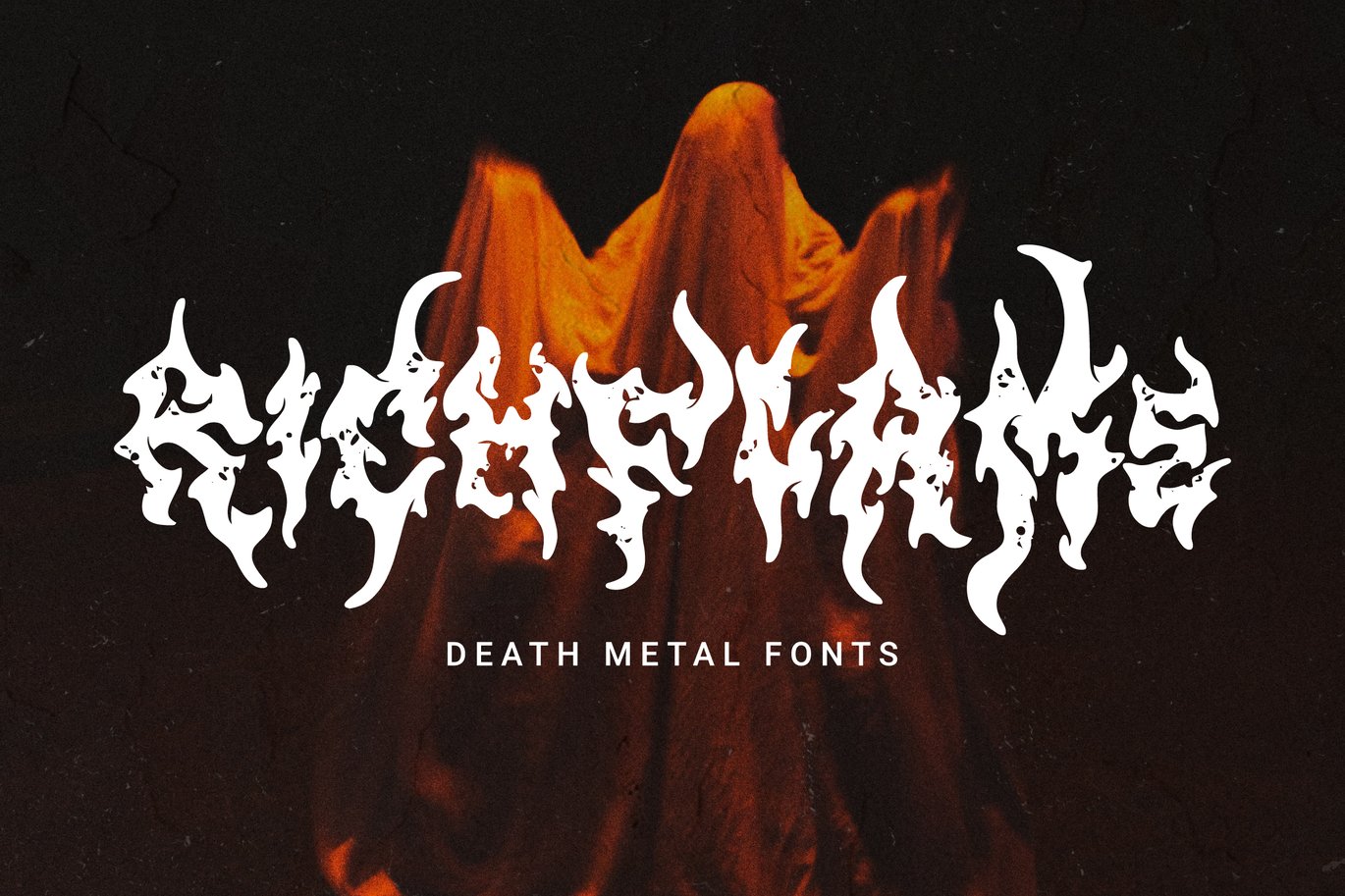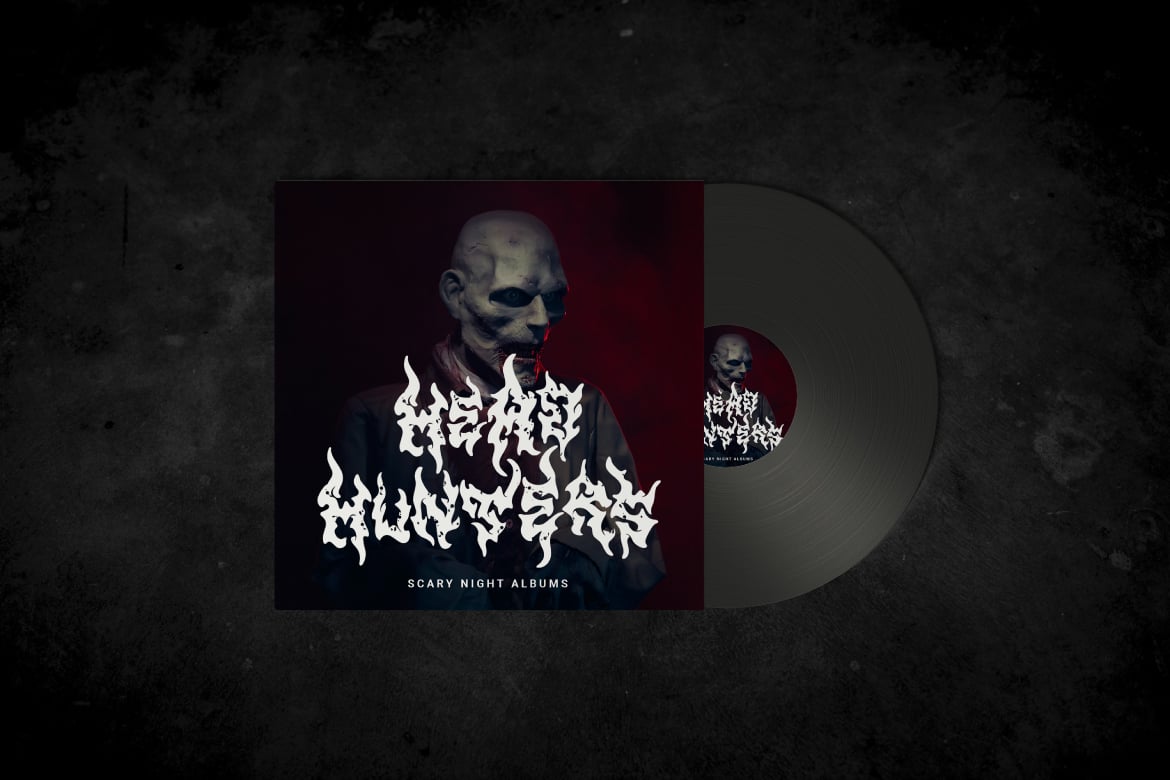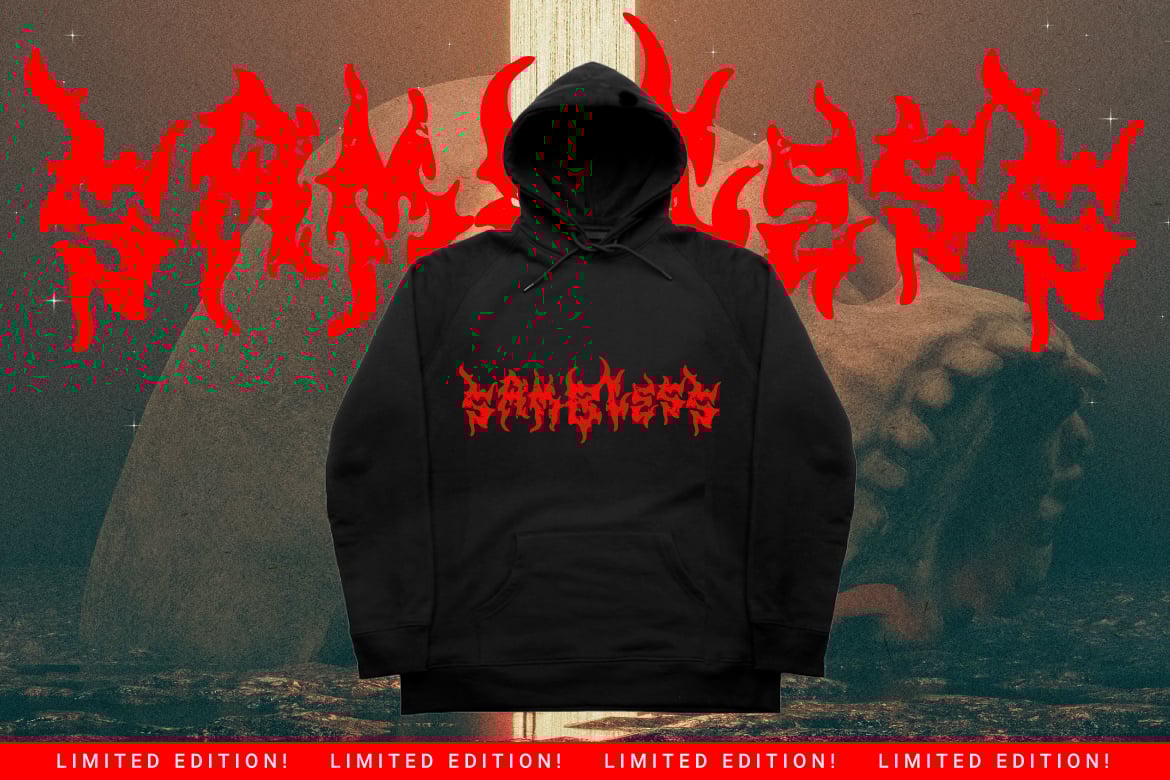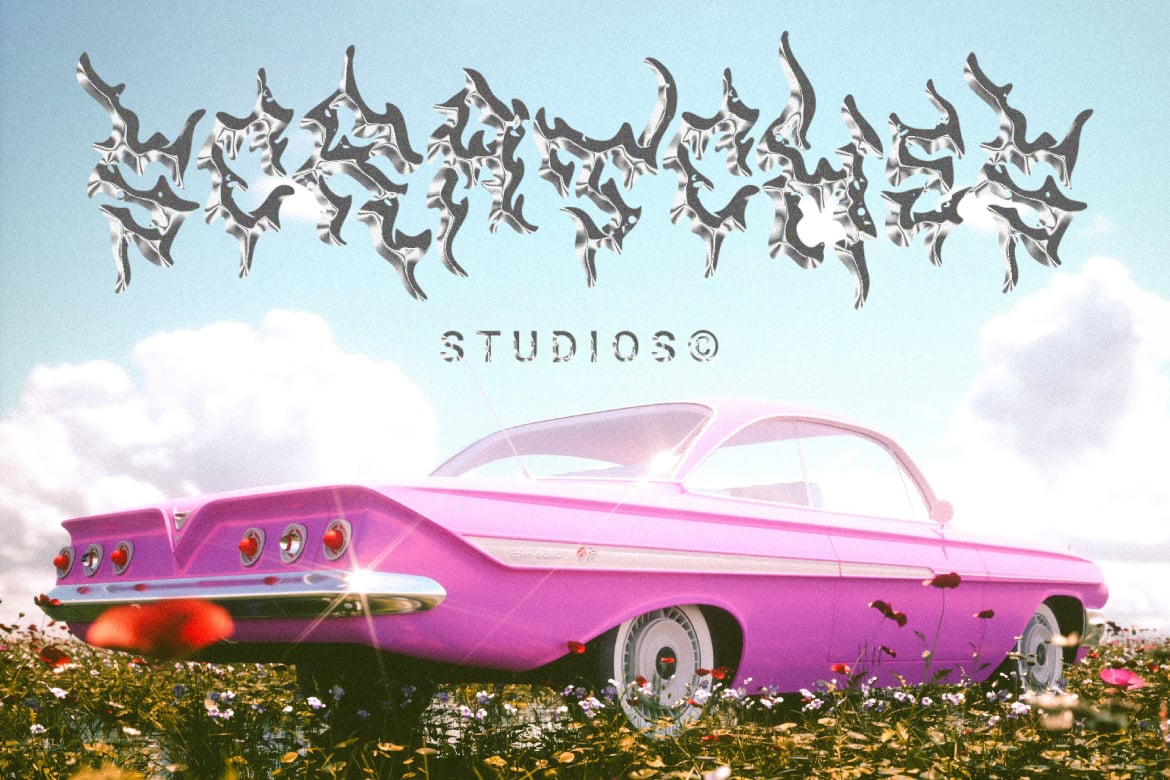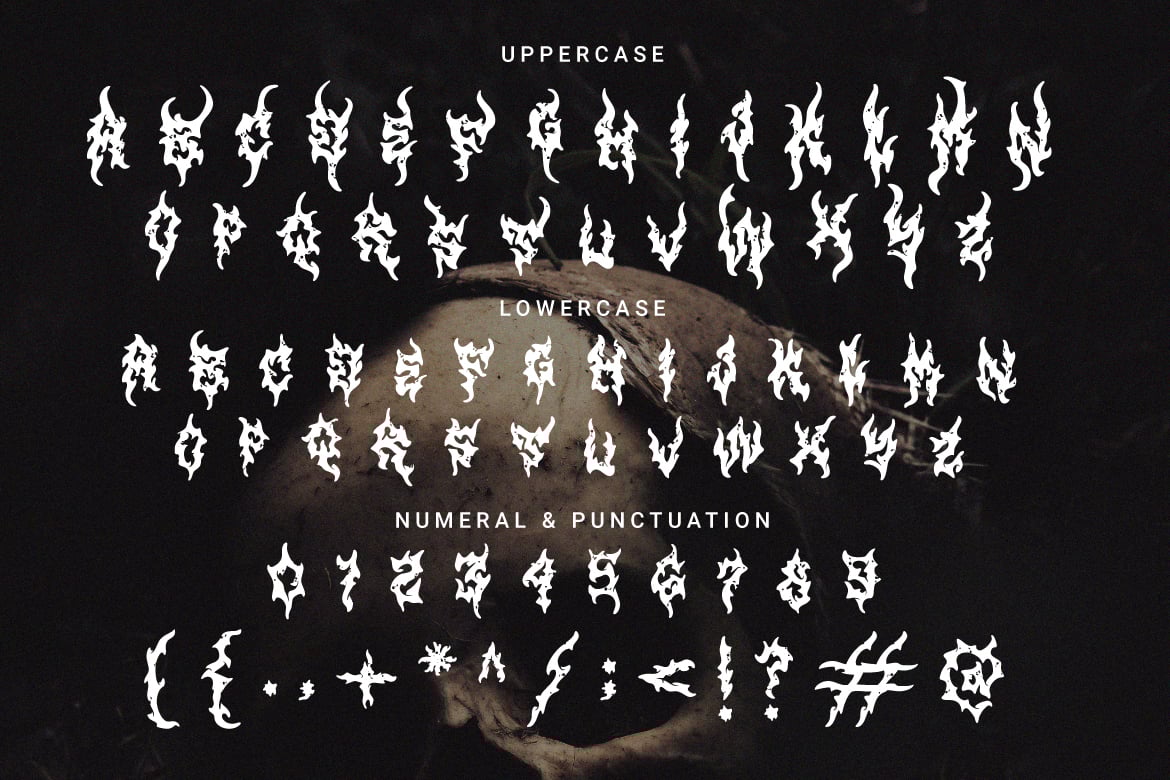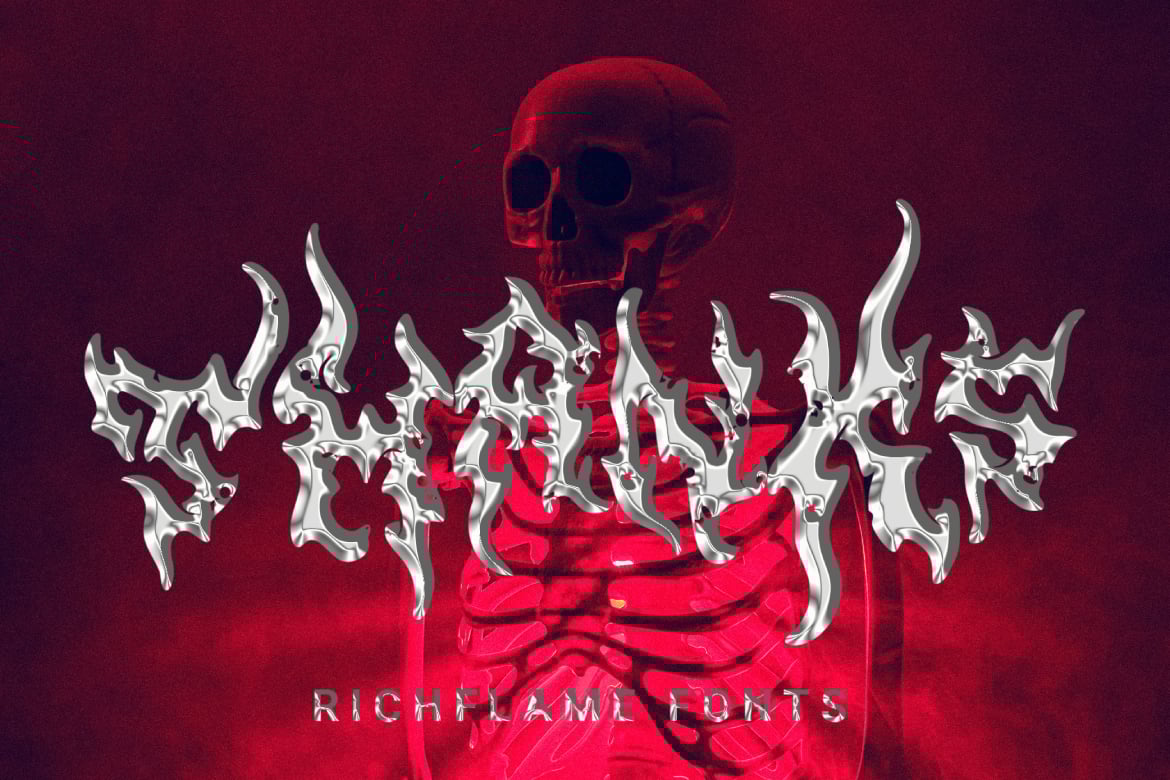
Richflame – Death Metal Fonts
Richflame – Death Metal Fonts.
Are you one of those who own a band or a fan of loud music? Yes, creative support is available here to spoil the appearance or branding of your design. This font is perfect for posters, merchandise, logos and more.